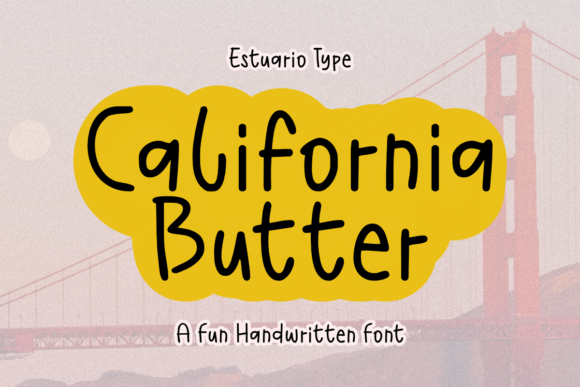
The California Butter Font: A Simple, Quirky, and Adaptable Handwritten Delight
I’ll never forget the design moment when I stumbled upon the California Butter font. I was working on a project for a client who wanted a relaxed, casual vibe for their branding. I had spent hours scouring the internet for the perfect font, but nothing seemed quite right. That was until I discovered California Butter – a simple, quirky, and adaptable handwritten font that instantly captured the essence of what my client was looking for.
- ✨ Easy on the eyes: California Butter has a smooth, flowing script that’s easy to read, even in smaller sizes.
- ✅ Versatile: This font is perfect for a wide range of projects, from branding and packaging to social media graphics and blog posts.
- 💕 Quirky charm: California Butter has a playful, informal style that adds a touch of personality to any design.
Of course, no font is perfect, and California Butter has a few minor quirks to consider:
- 🤔 Limited formal use: While California Butter is amazing for casual projects, it may not be the best choice for more formal or professional designs.
- ⚠️ Glyph limitations: Some users have reported that the font could benefit from a wider range of glyphs and special characters.
The Story Behind California Butter
While the true story behind California Butter remains a mystery, it’s easy to imagine that it was created by a designer who wanted to capture the laid-back, carefree spirit of the Golden State. Perhaps they drew inspiration from the state’s stunning natural beauty, its vibrant creative culture, or its iconic surf and skate lifestyle.
| Font Name | California Butter Font |
| Author | estuariotype |
| What makes California Butter so special? | California Butter is a unique blend of simplicity, quirkiness, and adaptability, making it perfect for a wide range of creative projects. |
| Is California Butter a difficult font to read? | No, California Butter is designed to be easy on the eyes, even in smaller sizes. |